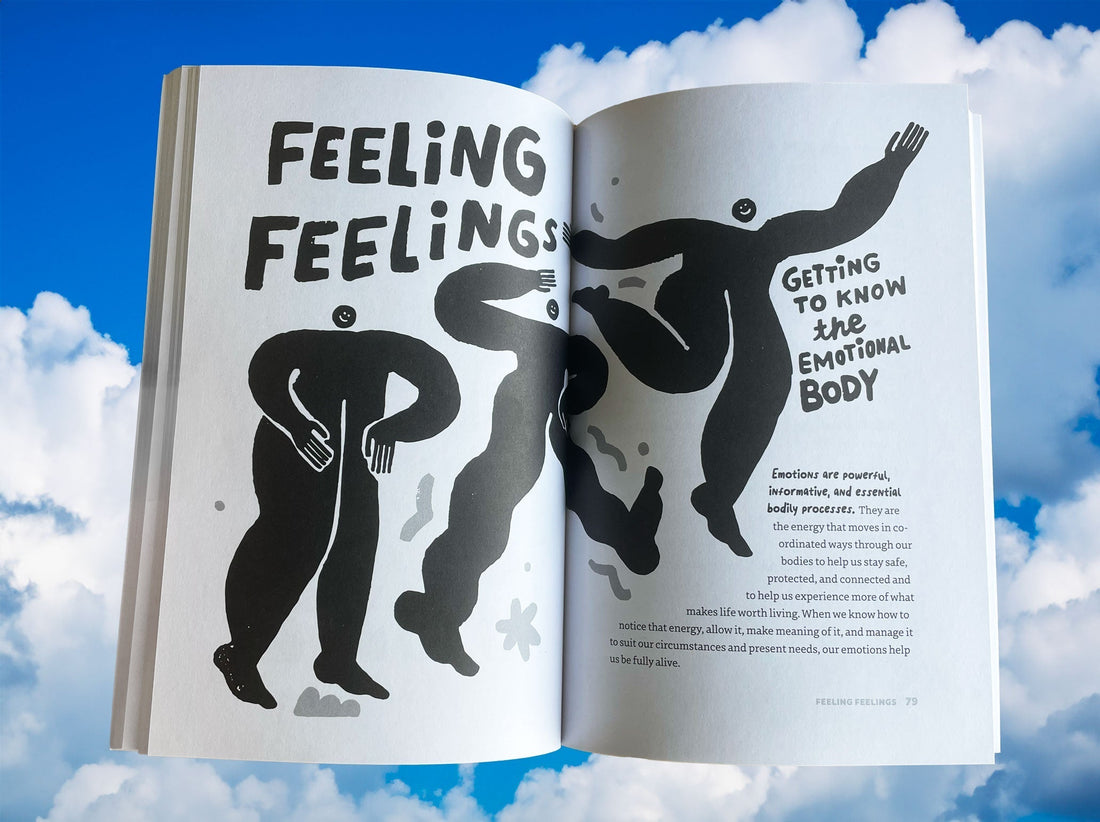
Fonts in Use: How Notie Brings Warmth to the Book, Practices for Embodied Living
Notie Font
I’ve been wanting to share more behind-the-scenes looks at how my handmade fonts show up in real projects, and this one is a great example of a typeface doing what it was designed to do.
Handwriting Font Notie, Lettering, and Illustration Used in Practices for Embodied Living
I created the font, interior illustrations, and hand-lettering used throughout the book Practices for Embodied Living: Experiencing the Wisdom of Your Body by Hillary L. McBride, published by Baker Publishing Group.
Handwriting Font Notie, Lettering, and Illustration Used in Practices for Embodied Living
The art direction for this project was very thoughtful. They wanted illustrations and lettering that showed bodies in a variety of forms, with a slightly fantastical quality, but still grounded, imperfect, and relatable. The font needed to have the same kind of honesty and warmth. Flowing and a little messy in the best way.
That’s where Notie came in.
It is a handwriting font I built to feel like personal notes you would scribble in a book or journal. Relaxed, lightly textured, and full of small quirks that make handwriting feel charming instead of polished. Every letter was drawn by hand, and I added alternates to help the type feel more natural when letters repeat in longer phrases. It is simple on purpose, but still adds personality to headlines, annotations, and little moments of emphasis throughout the book.
Handwriting Font Notie, Lettering, and Illustration Used in Practices for Embodied Living
In Practices for Embodied Living, Notie pairs really well with the flowing and varied body shapes, and hand-lettered chapter titles, adding a warm and personal touch. The goal was to make the book feel inviting, like a companion, and Notie helped create that voice.
Handwriting Font Notie, Lettering, and Illustration Used in Practices for Embodied Living
If you want a handwriting font that feels friendly and flexible, and works well for notes, headlines, quotes, or anything that needs a textured, written look, Notie might be a nice fit.